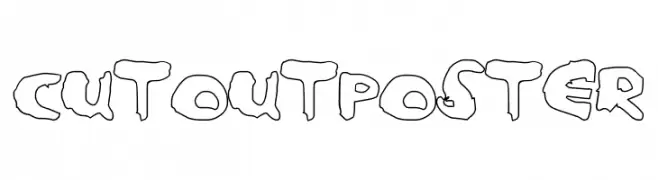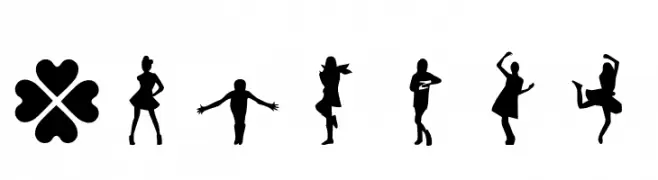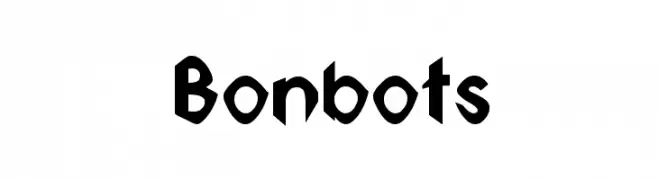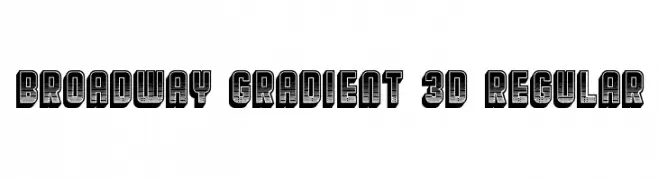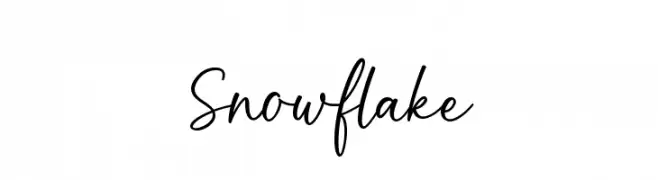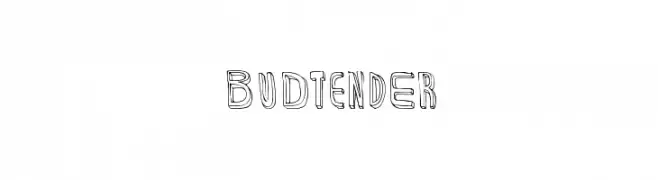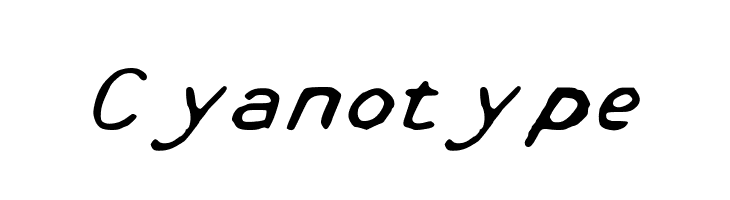
A playful, cut-out style font with bold, jagged edges.
A bold, gothic blackletter font with ornate detailing and sharp angles.
A playful dingbat font with clover icons and dancing silhouettes.
A bold, geometric font with playful and artistic character shapes.
A bold, distressed font with a rugged, geometric design.
A bold, 3D gradient font with a vintage marquee style.
A flowing, cursive font with elegant, connected strokes.
A bold, angular, and futuristic italic font with a strong visual impact.
A playful, hand-drawn font with a sketch-like, dimensional appearance.
A utilitarian symbol set based on German traffic and road signage.